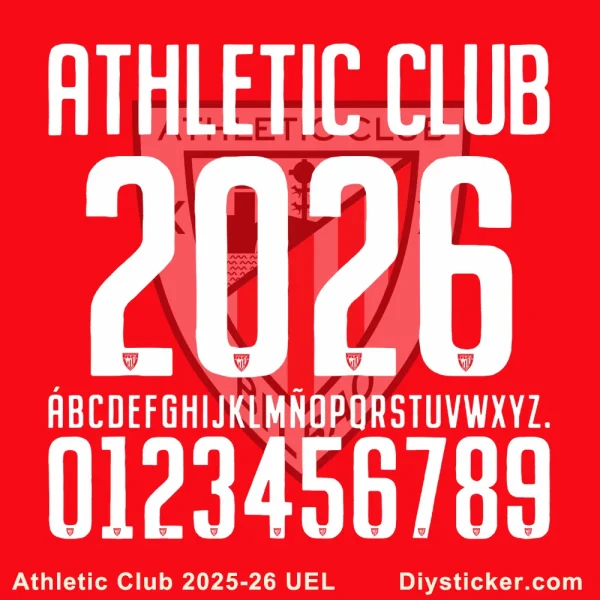
Design with the passion of Los Leones using the official Athletic Club 2025-26 Font. This professionally crafted typeface replicates the distinctive lettering style featured in the club’s UEFA Europa League campaign, perfect for creating authentic Athletic Bilbao designs.